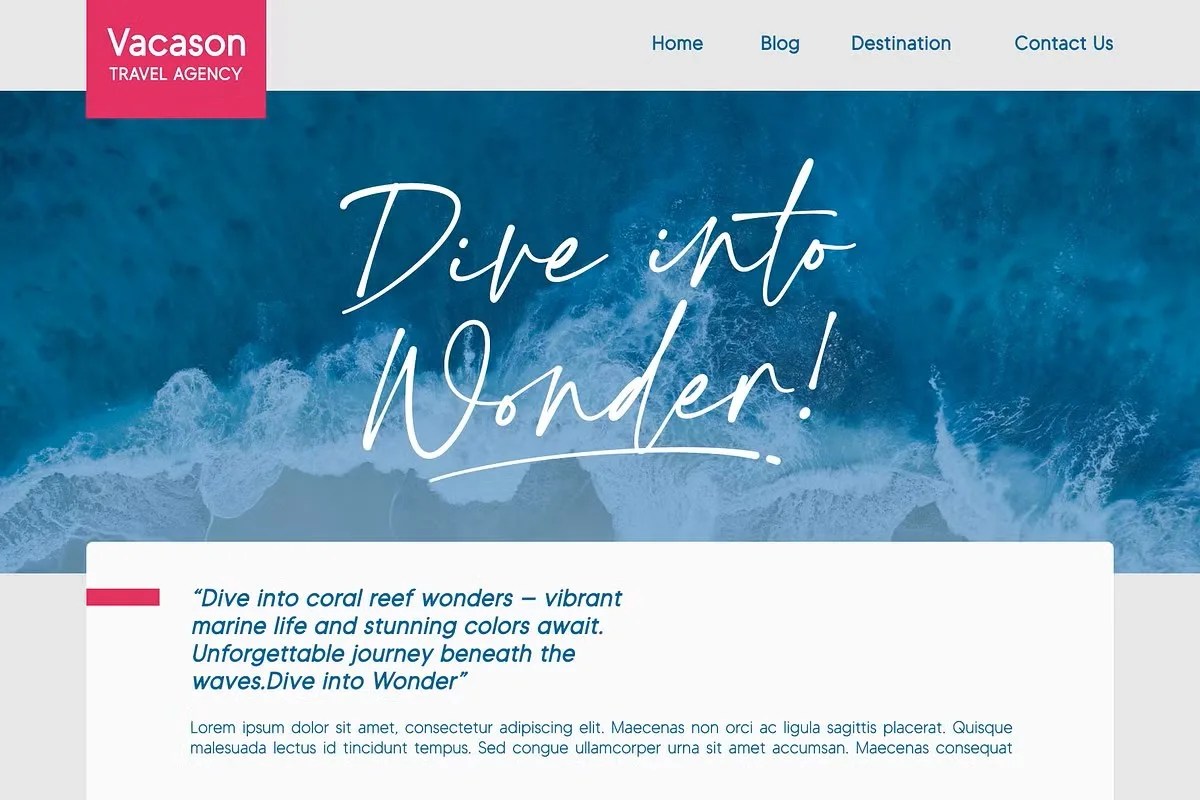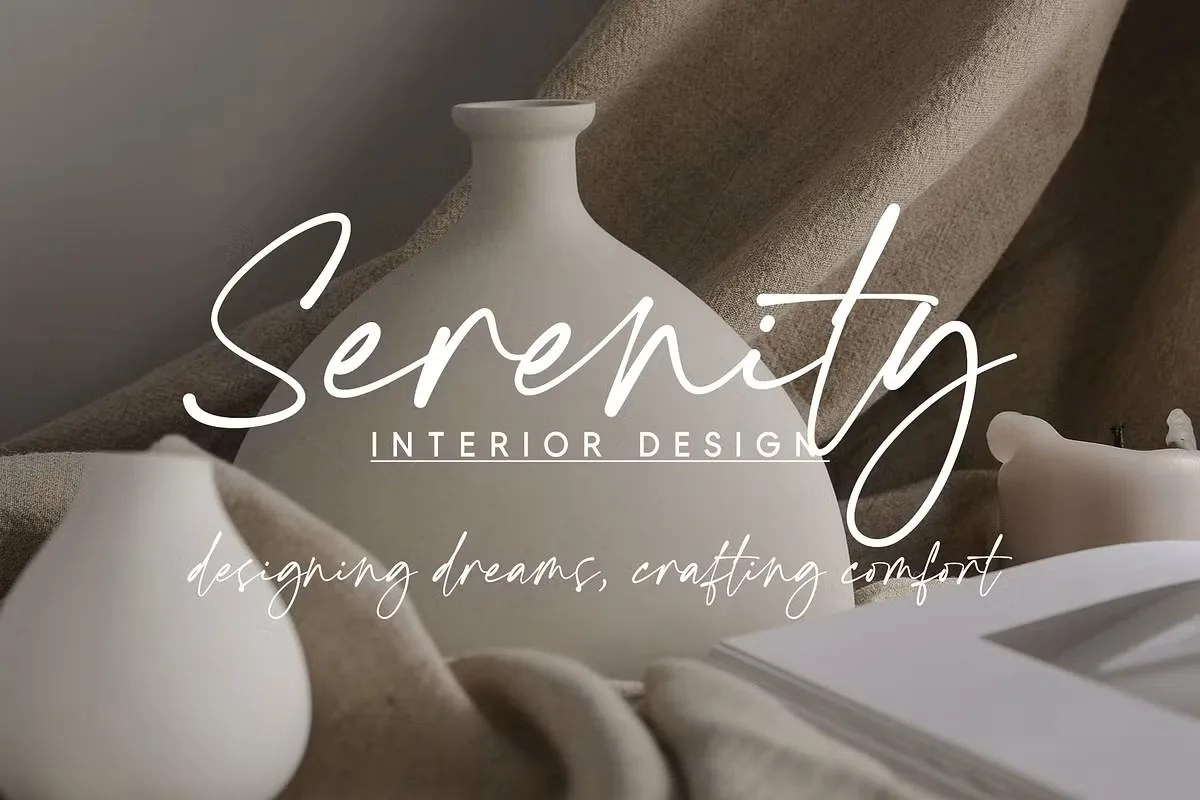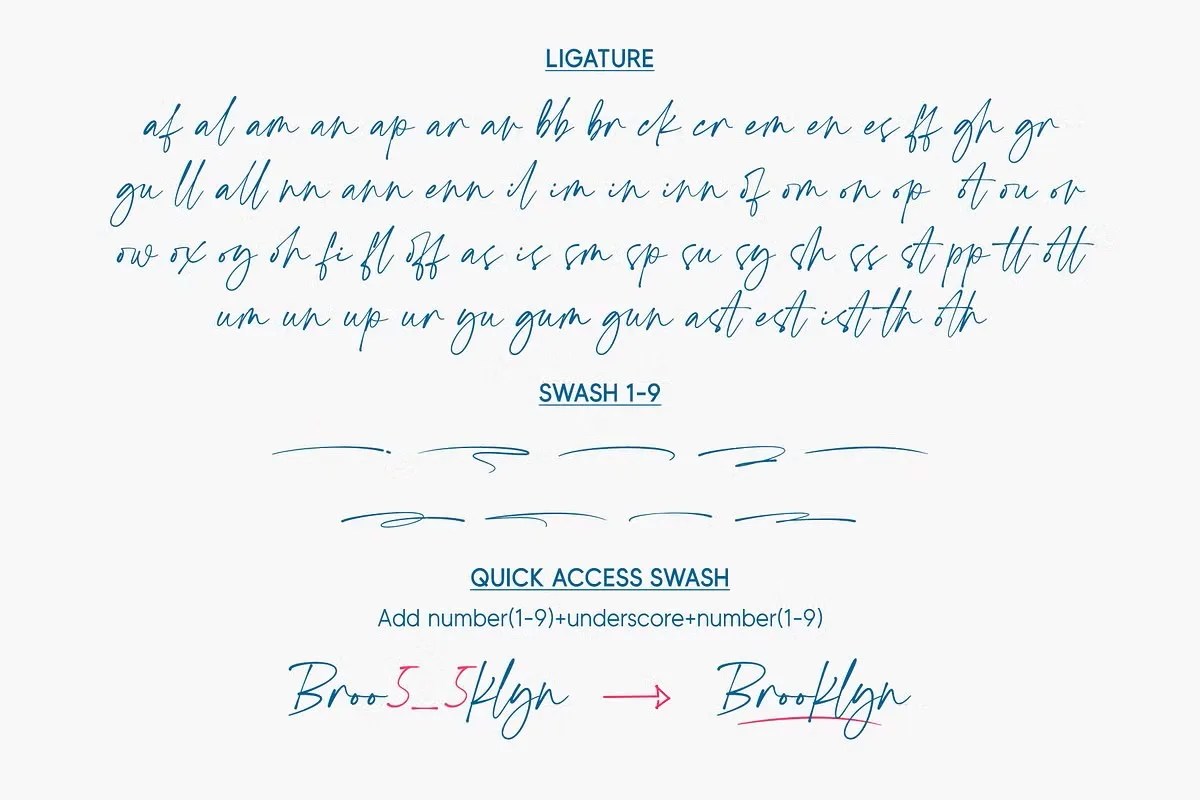
Conthin by Lemonthe. This is a stunningly elegant script font that flows with effortless grace. It features a clean, monoline stroke, which perfectly mimics the look of a fine-tipped pen. The font’s continuous, flowing lines create a seamless and personal feel in any application. Conthin adds an immediate touch of sophistication and charm to any design it graces, making simple text look like a piece of art.
This font is a perfect choice for projects that require a touch of class. Specifically, it is a beautiful option for wedding invitations, save-the-dates, and other formal stationery. It immediately sets a romantic and sophisticated tone. Furthermore, this elegant script font is excellent for creating a signature-style logo for photographers, designers, or consultants. It can add a personal, authorial mark to a brand. Use it for high-end packaging or refined social media graphics to create a lasting and beautiful impression.
• Delicate and elegant script style
• Features a clean, monoline stroke
• Ideal for invitations, signatures, and branding
• Provides a sophisticated and personal feel
Conthin